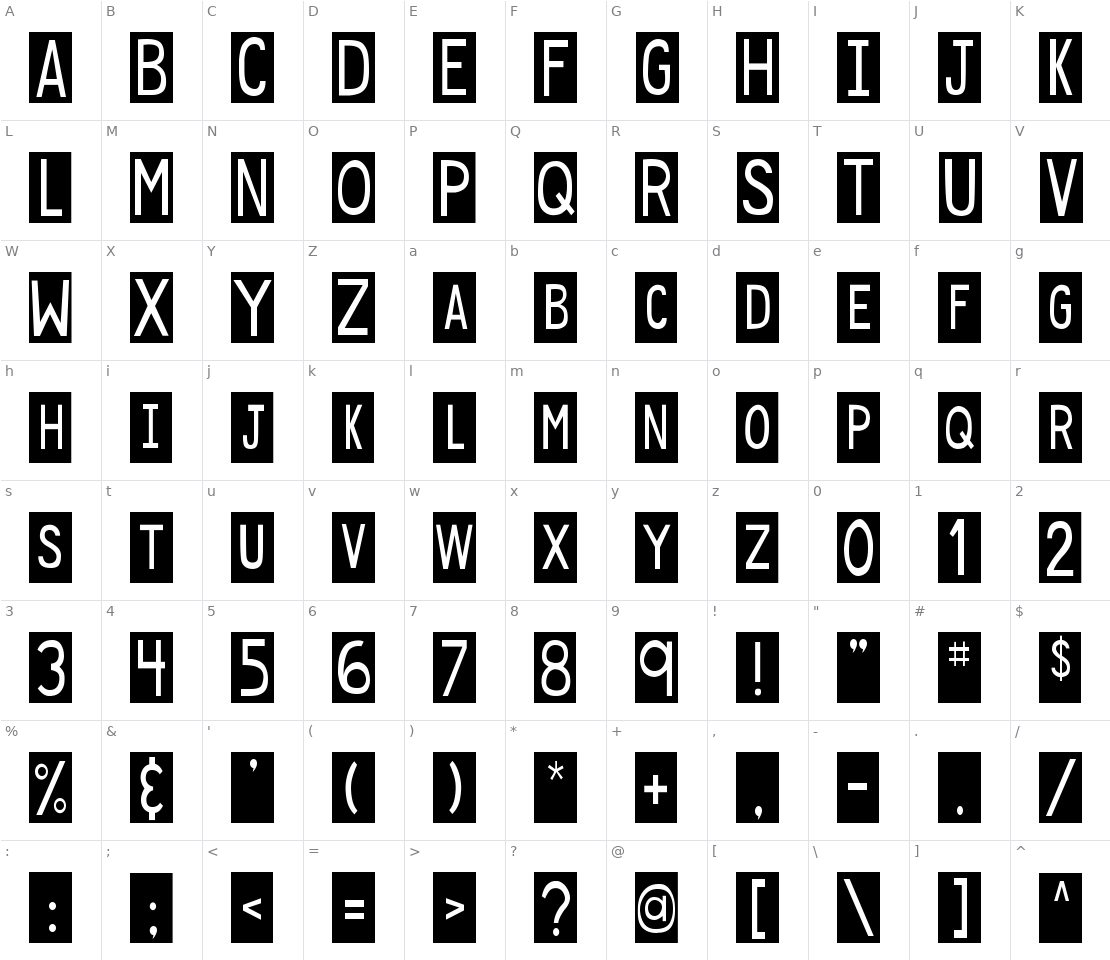
DJB Sticky Tape Labels
DJB Sticky Tape Labels is a novelty uppercase face from DJB Fonts where each letter sits inside its own strip of tape, giving it the look of embossed label maker output or hand-cut scrapbook lettering. The condensed, boxed characters have a crafty, tactile charm that works for invitations, packaging, and DIY-style layouts. It's a one-trick pony, but the trick is specific and well-executed.